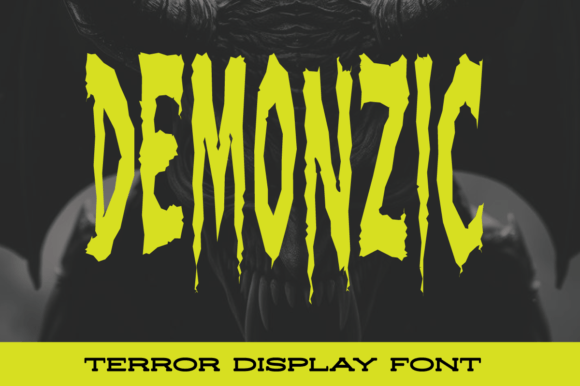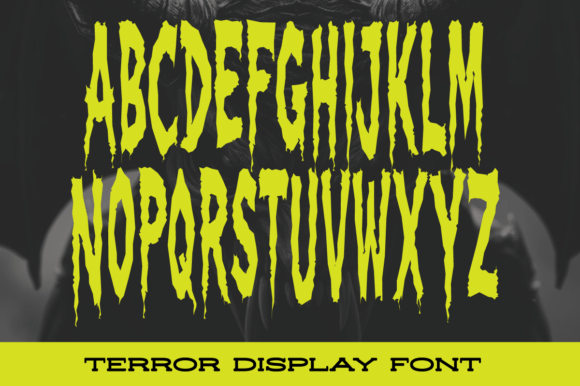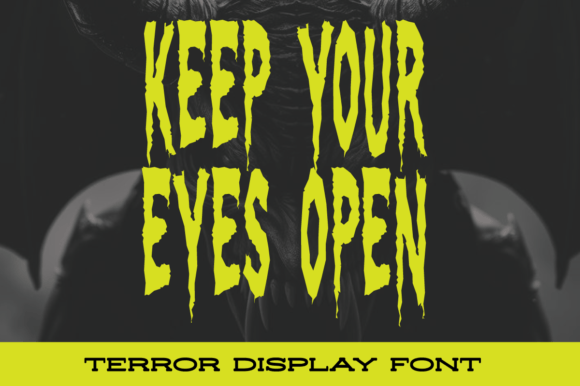
Demonzic Font: A Horror Display Font for Eerie Typography
About the Demonzic Font
From logos to headlines, the Demonzic Font is the perfect choice for making a lasting impression. Demonzic is a scary font style perfect for your most horrifying Halloween designs. Perfect for horror titles, haunted house posters, or any design meant to evoke death, decay, and eerie stillness, “Demonzic” captures the raw essence of raw terror and fear.
Demonzic excels in large-scale applications such as movie posters, album art, or horror game titles where its dramatic weight commands attention. Its aggressive forms are also well-suited for logotypes of extreme sports brands or edgy fashion labels. However, its highly stylized nature makes it unsuitable for body text or UI elements; readability suffers at smaller sizes.
For optimal visual impact, pair Demonzic with a clean sans-serif like Futura or a sharp geometric font such as Bebas Neue for contrast. This juxtaposition balances the font’s raw energy with a sense of modern sophistication. Alternatively, a classic serif like Garamond can provide a refined counterpoint, highlighting Demonzic’s dramatic character.
Demonzic’s core personality is aggressive and bold, conveying a sense of raw power and darkness. It is best suited for projects aiming for a visceral, high-impact aesthetic.
Demonzic Font Usage Examples
Demonzic Font Example